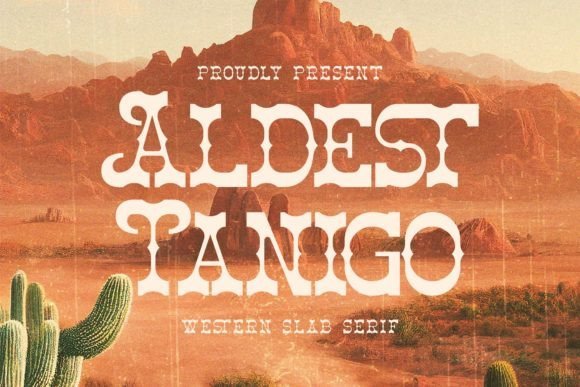
The Perfect Stamp of Authority: Unveiling the Aldest Tanigo Font
Have you ever stared at a blank canvas, trying to bring your creative vision to life? The blank page can be daunting, but sometimes, all it takes is one bold font to set the tone for your entire design. For me, it was the moment I discovered the Aldest Tanigo Font – a game-changer that instantly elevated my work. Its classic Western look and feel gave my designs a rugged, confident edge that I couldn’t get enough of.
As a designer, you’re always on the lookout for that special something that sets your work apart. That’s where the Aldest Tanigo Font comes in – a versatile and eye-catching font that’s perfect for making a statement. With its thick, slab serifs, it’s ideal for headlines and titles that need to stand out. Whether you’re working on a magazine cover, a logo, or a promotional poster, the Aldest Tanigo Font is sure to add a touch of authority and sophistication to your design.
Aldest Tanigo Font Key Features
- Font Family: Aldest Tanigo Font offers a unique, hand-drawn style with 6 font styles (Regular, Bold, Italic, Bold Italic, Outline, and Shadow)
- Unique Characteristics: Aldest Tanigo Font features a distinctive, hand-drawn style with subtle imperfections, giving it a unique and human touch
Aldest Tanigo Font Review
Overall, I have mixed feelings about the Aldest Tanigo Font. On one hand, there are some aspects that I really like. ✨ The font’s unique and quirky feel immediately caught my attention. It’s perfect for adding a touch of whimsy to your designs. ✨ The font also comes in a wide range of weights, making it easy to use for different typography needs. ✨ The designer has also done a great job with the font’s kerning and spacing, making it look clean and professional.
However, there are some limitations that I feel need to be addressed. ⚠️ The font’s usability can be a bit hit-or-miss, depending on the context in which it’s used. ⚠️ The font’s unique feel can sometimes make it difficult to read, especially in smaller sizes. ⚠️ Additionally, the font’s support for certain languages is limited, which can be a problem for designers who need to create content for global audiences.
Overall, I would give the Aldest Tanigo Font 3.5 out of 5 stars. While it’s a unique and interesting font, its limitations hold it back from being a truly top-notch choice. If you’re looking for a font that adds a touch of personality to your designs, Aldest Tanigo might be worth checking out. But if you need a font that’s highly versatile and easy to use, you might want to look elsewhere.
- Unique and quirky feel
- Wide range of weights
- Good kerning and spacing
- May be difficult to read in smaller sizes
- Limited language support
The Aldest Tanigo font is commonly used for:
- Designing logos and branding materials.
- Creating infographics and visualizations.